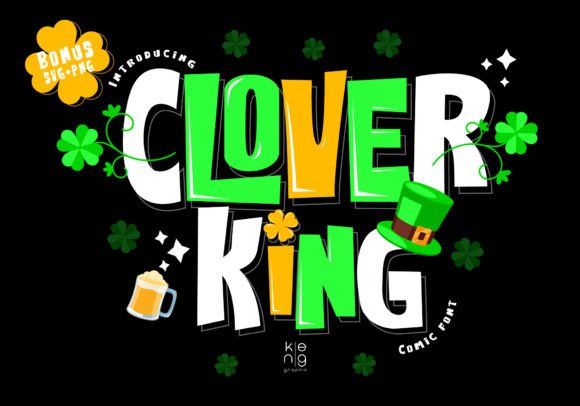
Looking for the best font for T-shirt designs that will make your products stand out? Look no further than Clover King Font! This display font, created by Keng Graphic, is the perfect choice for anyone who wants to add a touch of modern and youthful flair to their designs.
One of the key features of Clover King is its unique style, which is sure to catch the eye of anyone who sees it. Whether you're creating comic book-style designs, posters, or movie titles, this font is the perfect choice for those who want to make a bold statement.
In addition to its stylish appearance, Clover King is also incredibly versatile. It's perfect for use in online games, cards, love shirts, and even social media posts that need a bit of extra pizzazz. And with PUA encoding, accessing all of the glyphs and swashes is a breeze!